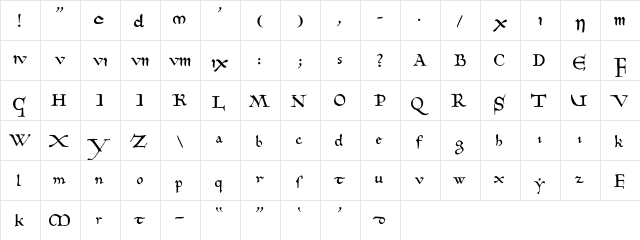
10thCenturyBookhandWF Regular
Design Context for 10thCenturyBookhandWF Typeface
10thCenturyBookhandWF flows with the natural rhythm of handwritten lettering, making it ideal for designs that call for warmth and personal expression.
Font Pairing: Combine 10thCenturyBookhandWF with a simple geometric sans for maximum contrast — the tension between flowing curves and clean structure is a classic typographic pairing.
Pro Tip: Pair 10thCenturyBookhandWF with a clean sans-serif for supporting text. The contrast between fluid script and geometric structure creates an elegant typographic hierarchy.